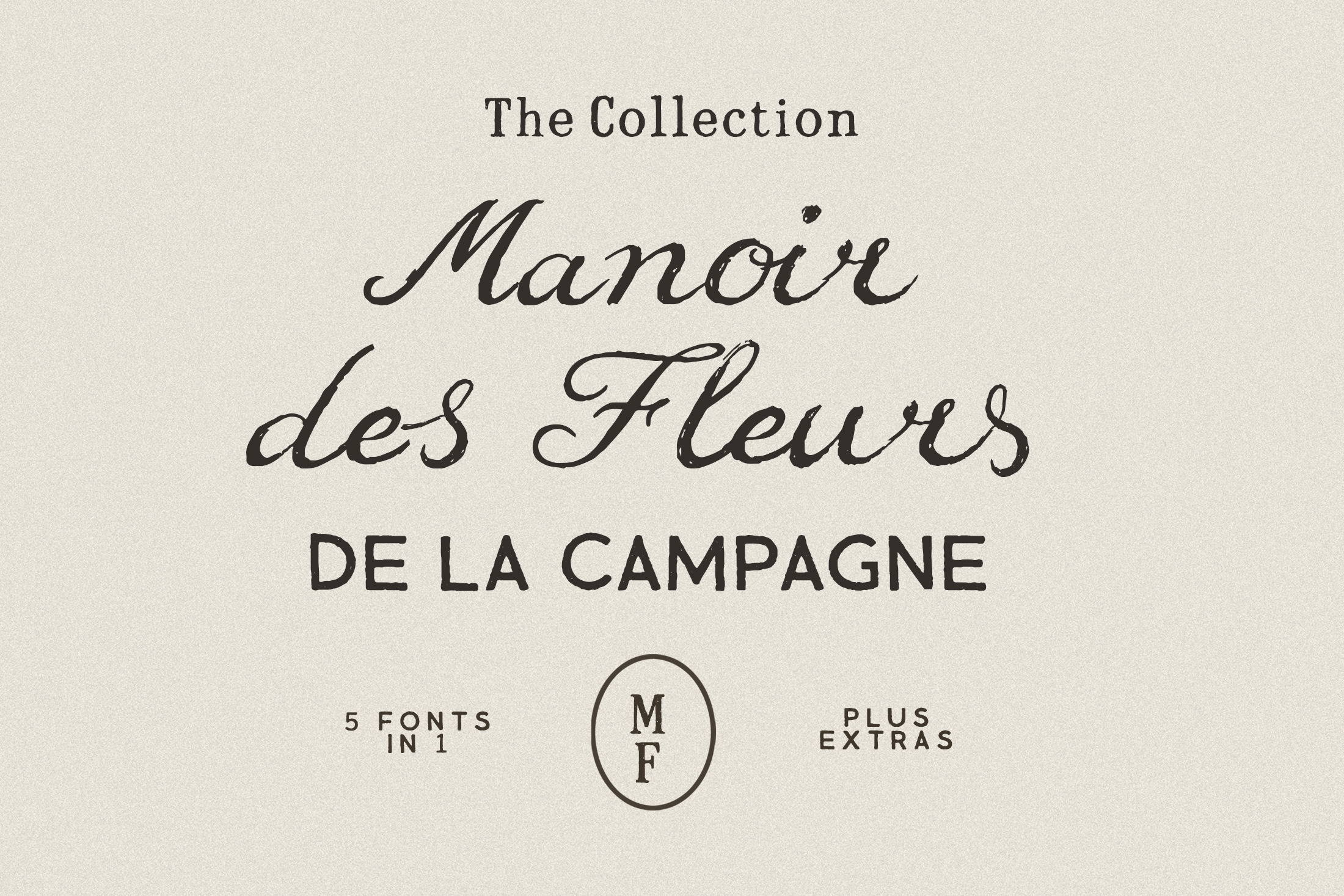
Handmade Cottagecore Script Font Set
Rooted in vintage craftsmanship and elevated cottagecore aesthetics, this font bundle brings a tactile, handcrafted feel to your designs. The exclusive collection includes five carefully matched fonts: a flowing script, a handmade serif, and a versatile sans family with bold and outline styles. Each typeface features authentic texture, brush strokes, and subtle imperfections, creating a rustic yet refined look with depth and character.
Hand drawn rustic shapes & logo symbols
Designed for branding, packaging, editorial layouts, menus, signage, and lifestyle projects, these fonts work beautifully across print and digital applications. Ideal for boutique brands, hospitality concepts, wedding stationery, product labels, and creative storytelling where warmth, elegance, and authenticity matter.